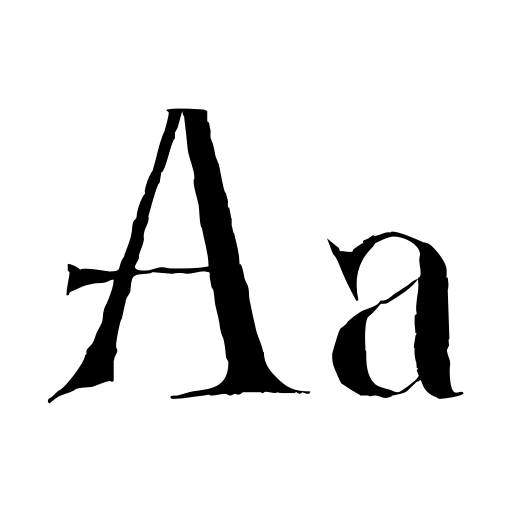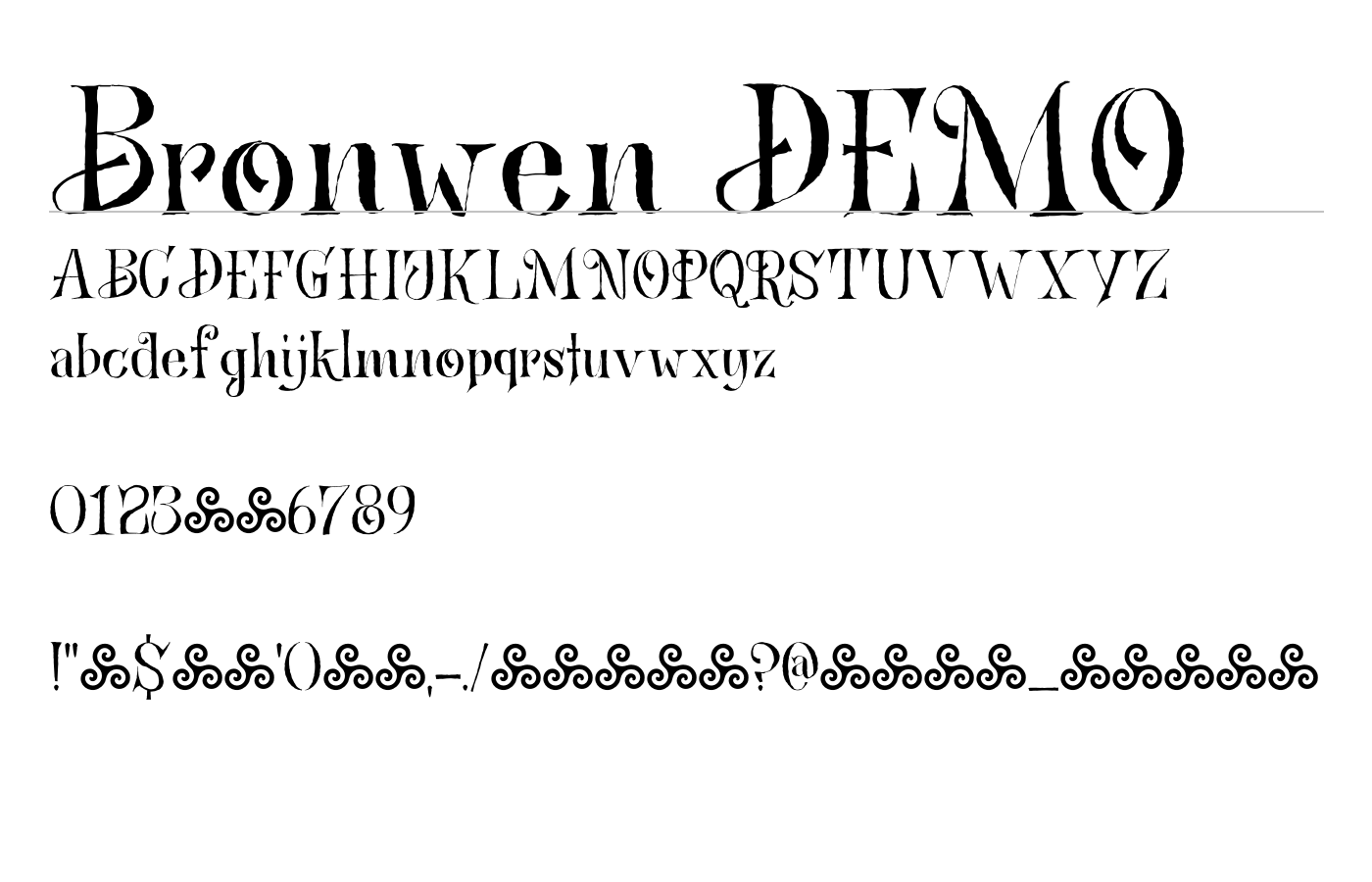
Bronwen DEMO is an artistic serif font with a distinctive, hand-crafted feel characterized by sharp, irregular strokes and high contrast between thick and thin lines. Its decorative flair and unique letterforms create a vintage yet whimsical vibe, making it ideal for creative projects, logos, editorial headlines, and design work seeking an expressive, slightly gothic touch. This font works well in contexts that benefit from dramatic personality and visual impact rather than long passages of text.
Bronwen DEMO Font
About Bronwen DEMO Font